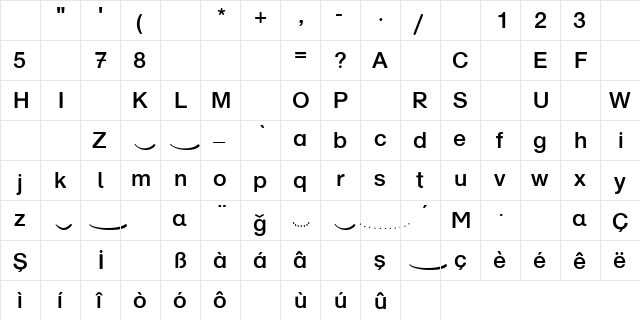
Norddruck Regular
Design Context for Norddruck Typeface
Norddruck is a composed and adaptable typeface that performs quietly and consistently across a wide range of design contexts.